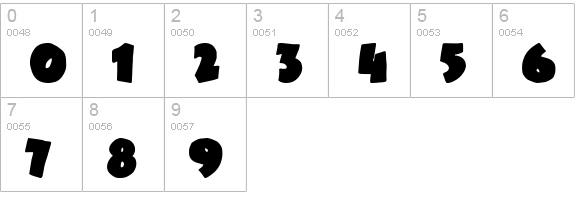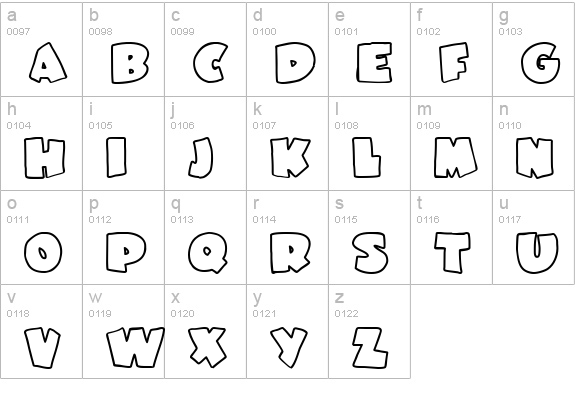
JuneBug Font Details
Introducing JuneBug Font - a whimsical and playful typeface designed to add a touch of charm to your projects. With its unique hand-drawn style and quirky personality, JuneBug is perfect for creating eye-catching designs for various purposes. This delightful font features a mix of rounded edges and uneven lines, giving it a fun and casual look that is sure to capture attention. Whether you're designing greeting cards, invitations, logos, or social media graphics, JuneBug will bring a sense of warmth and character to your creations. Best of all, JuneBug Font is completely free to download at FontsMarket.com. So go ahead and bring some joy and creativity to your projects with this charming and versatile typeface. Let JuneBug be your go-to font for adding a whimsical touch to your designs.